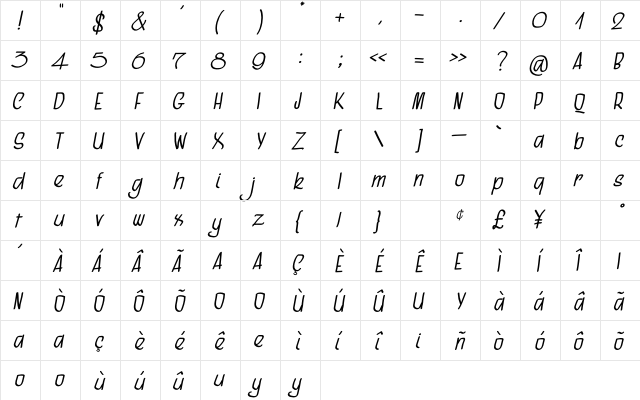
Supermarket Fila Regular
| Designer | Marcelo SodrΠa.k.a. C˯ Fila |
Supermarket Fila takes a measured approach to typography — its balanced proportions and neutral character make it a reliable workhorse for both digital and print work.